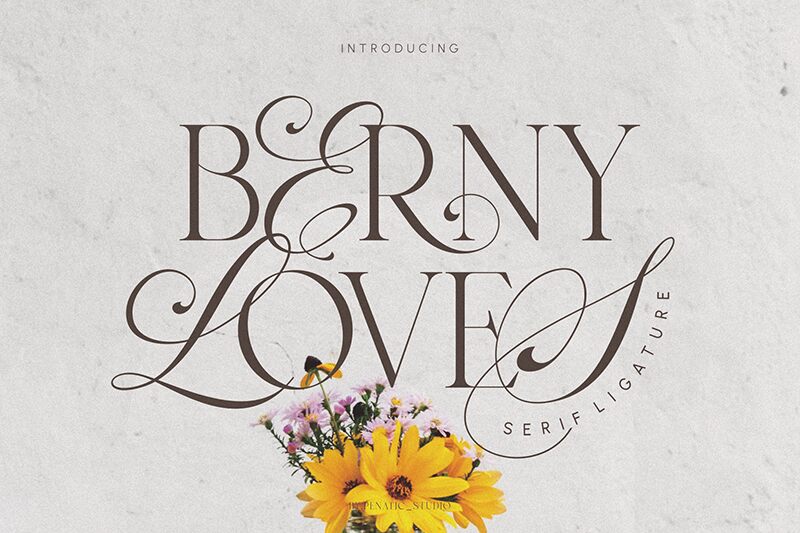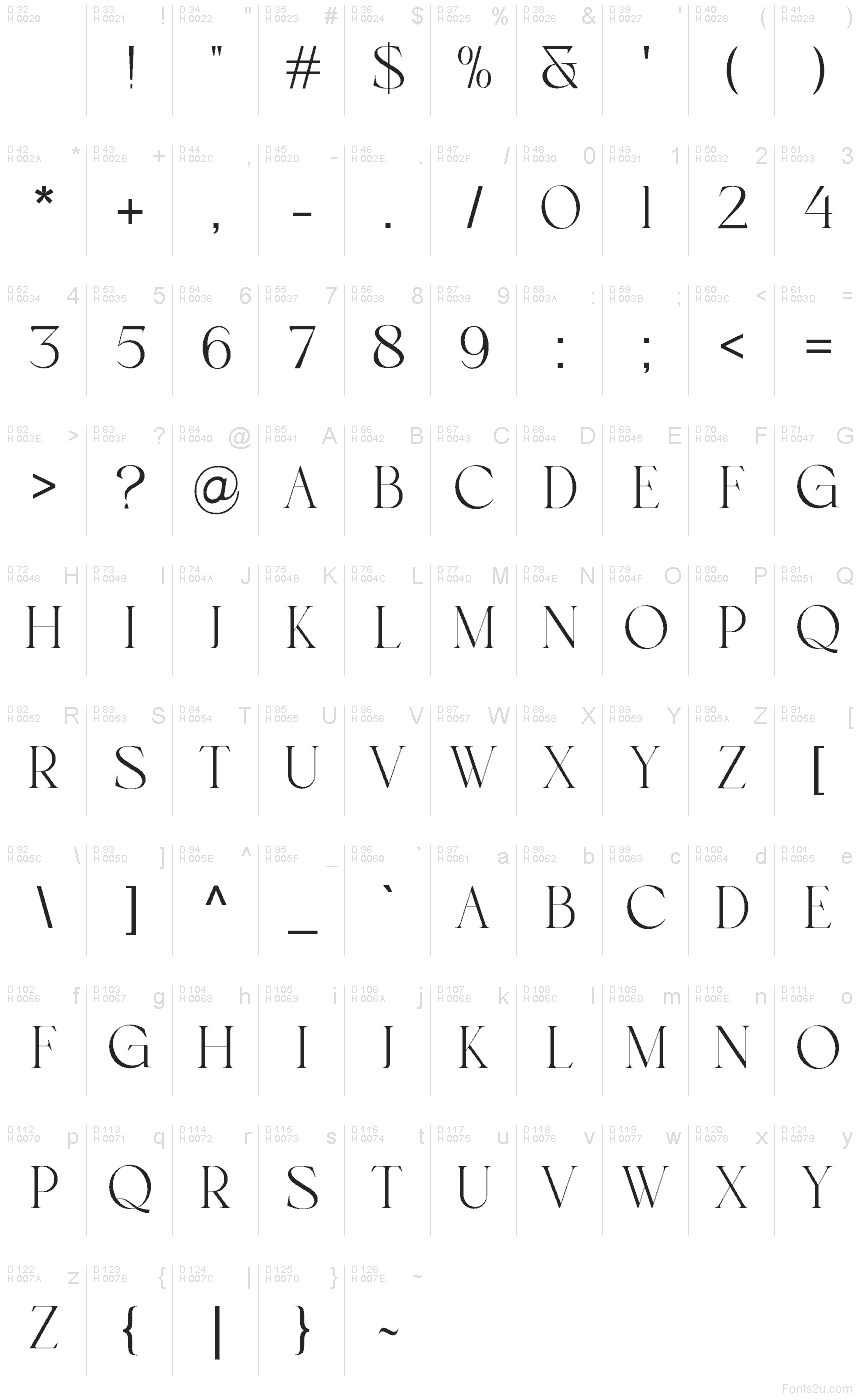
BERNY LOVES
Berny loves font by Penatic Studio is a free serif font. Its signature touch is those feather-thin strokes that feel almost brushed in air, giving headlines a silky, top-shelf finish. Letters stand tall and refined, with graceful curves and just enough bite in the serifs to keep things crisp rather than flimsy.
Using Berny loves, your work takes on a hush-luxe mood that shines on boutique logos, fashion editorials, wedding suites, perfume packaging, magazine covers, and hero banners. The generous elegance encourages larger sizes where the fine detailing can breathe. For balance, pair this free typeface with a quiet grotesque sans for body copy, and keep tracking slightly open to let that airy rhythm do the talking.